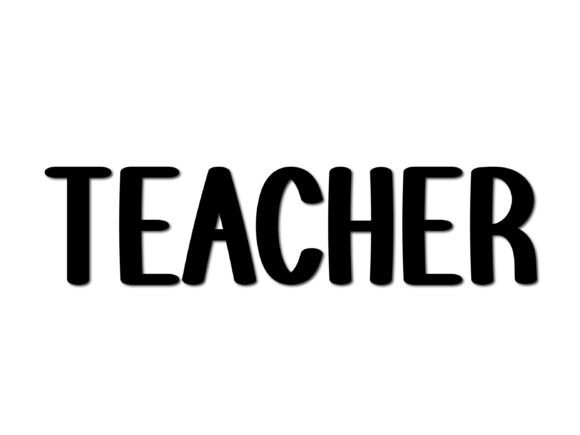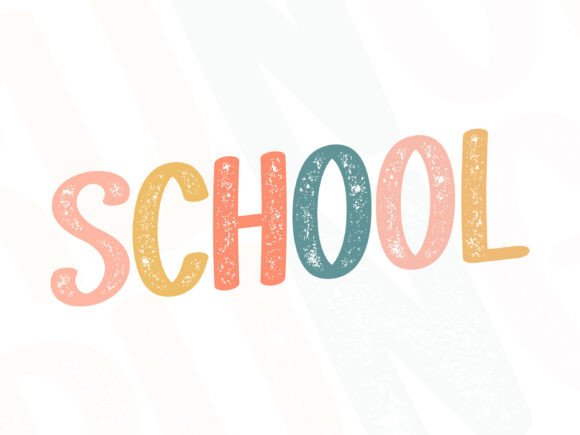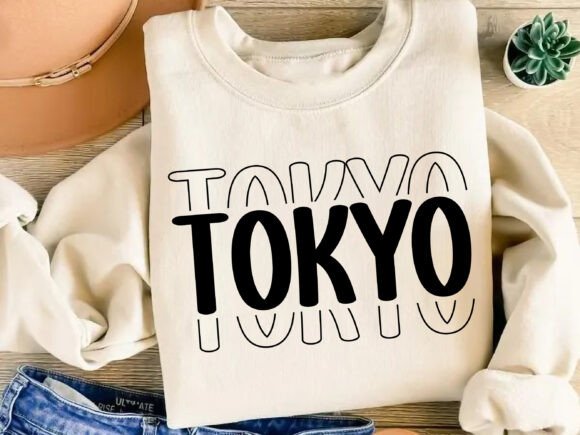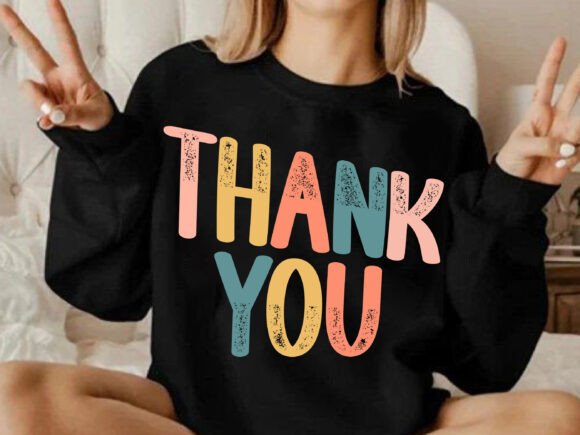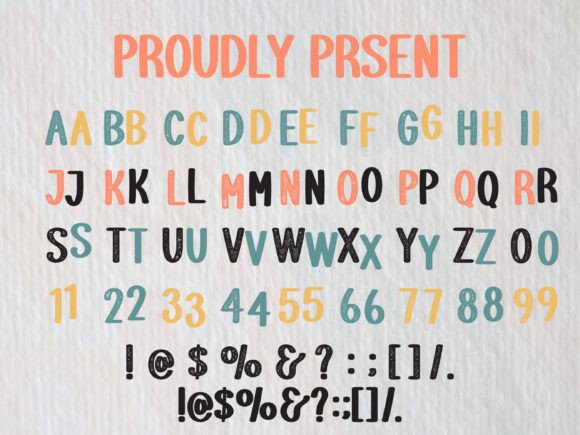
The Perfect Blend of Edginess and Elegance: Grunge Font
As a designer, there’s nothing quite like the rush of excitement that comes with creating something truly unique. It’s that moment when a blank canvas transforms into a vibrant, visually stunning masterpiece – and that’s exactly what the Grunge Font can do for your projects.
This flowing handwritten font brings an elegant touch to any design, adding a distressed, edgy style that’s perfect for making a statement. With its clean letters and unique look, the Grunge Font is more than just a typeface – it’s a design element that can elevate your work to new heights. Whether you’re designing invitations, t-shirts, or any other creative project, this font is sure to add character and impact.
Grunge Font Key Features
- Font Family: Grunge Font is a sans-serif font family designed to mimic the aesthetic of grunge music and early 1990s street art. It consists of 8 fonts: Grunge, Grunge Bold, Grunge Condensed Bold, Grunge Extended Bold, Grunge Outline, and Grunge Outline Bold.
- Character Set: The font includes a wide range of characters, including Latin, Cyrillic, and Greek alphabets, as well as punctuation and special characters, making it suitable for multilingual typography.
- Unique Characteristics: Grunge Font features distressed, worn, and rough textures that evoke a sense of nostalgia and retro aesthetic. The font’s imperfections and irregularities add a touch of authenticity and character to any design.
Grunge Font Review
The Grunge Font is a bold and edgy typeface that’s perfect for those who want to add a touch of rebellion to their designs. ✨ I love how it instantly conveys a sense of attitude and nonconformity, making it ideal for music, fashion, and streetwear brands.
One of the standout features of the Grunge Font is its versatility. ✨ It works well in both digital and print formats, and its unique texture and distressed look can add visual interest to any design. It’s also highly customizable, allowing designers to adjust the font’s color, size, and style to fit their needs.
Limits and Drawbacks
While the Grunge Font is a great addition to any designer’s toolkit, there are a few limitations to be aware of. ⚠️ For one, it can be quite difficult to read in certain situations, particularly in small font sizes or at a distance. Additionally, its bold and edgy look may not be suitable for all brands or audiences, and may come across as too loud or overwhelming.
Another limitation is that the font can be quite “hit or miss” in terms of its aesthetic appeal. ⚠️ While some designers will love its gritty, rock-inspired look, others may find it too rough or unpolished.
Overall, I think the Grunge Font is a great addition to any designer’s toolkit, particularly for those who work with music, fashion, or streetwear brands. While it has its limitations, its unique look and versatility make it a valuable resource for any designer looking to add some edge to their designs.
- Unique, distressed look
- Works well in digital and print formats
- Bold and edgy aesthetic
- May be difficult to read in certain situations
- Not suitable for all brands or audiences
Tips for Getting the Most Out of Grunge Font
Here are a few tips to help you get the most out of Grunge Font:
- Use Grunge Font for music-related designs, such as album art or concert posters.
- Pair Grunge Font with other distressed or rough textures for a unique look.
- Experiment with different font sizes and colors to create a striking visual effect.
Q: What is the technical difference between Grunge Font and other distressed fonts?
Grunge Font is typically created using a combination of traditional typography techniques, such as hand-drawing and phototyping, and digital manipulation. This results in a unique, organic texture that is difficult to replicate using automated font generation techniques. In contrast, other distressed fonts may be created using algorithms and automated processes, resulting in a more uniform and less organic texture.